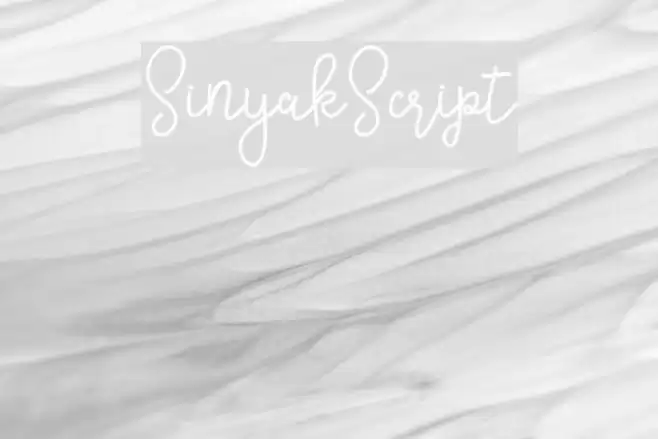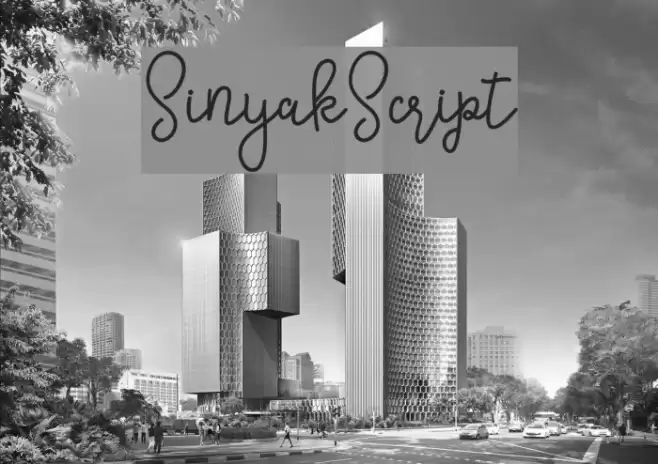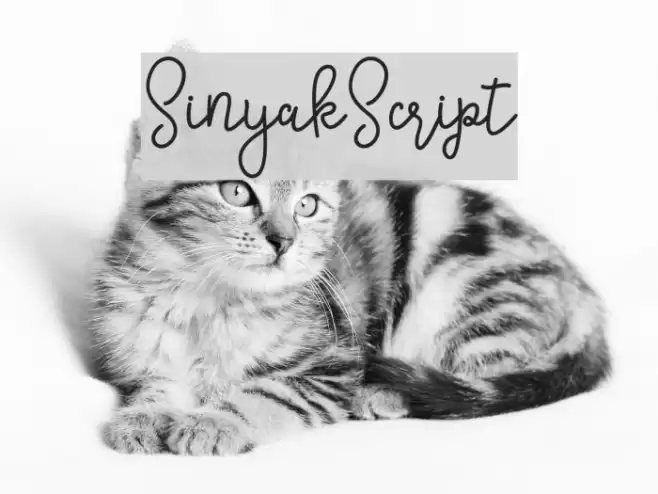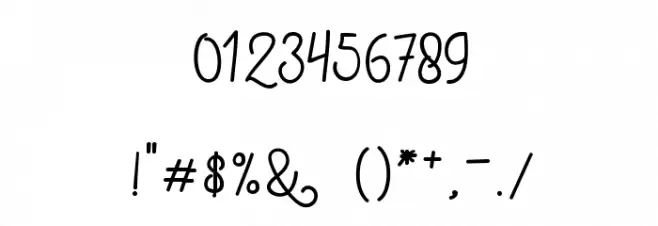
SinyakScript Font
SinyakScript Description
This font features a flowing, cursive style with elegant loops and swirls, reminiscent of traditional calligraphy. The uppercase letters are ornate, with distinctive flourishes, while the lowercase letters maintain a more subdued, yet still decorative appearance. The numerals and special characters are consistent with the script style, offering a cohesive look across all characters. This font exudes a sense of sophistication and grace, making it ideal for projects that require a touch of elegance.
A cursive script font with elegant loops and swirls, perfect for sophisticated designs from Uncategorized fonts.
- Proposed Projects: Ideal for wedding invitations, greeting cards, elegant branding, and decorative signage.
- Overall Style: Elegant
- Use Case: Logos, Invitations, Decorative Text